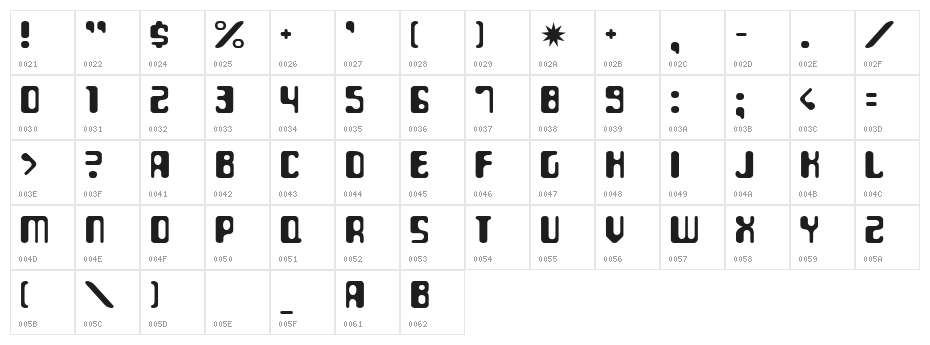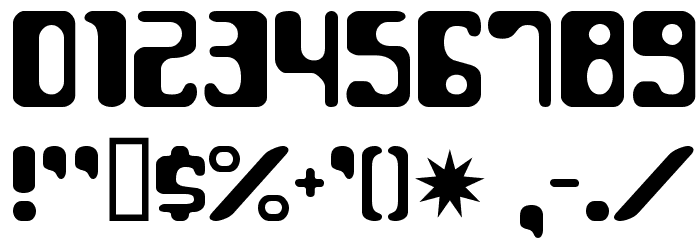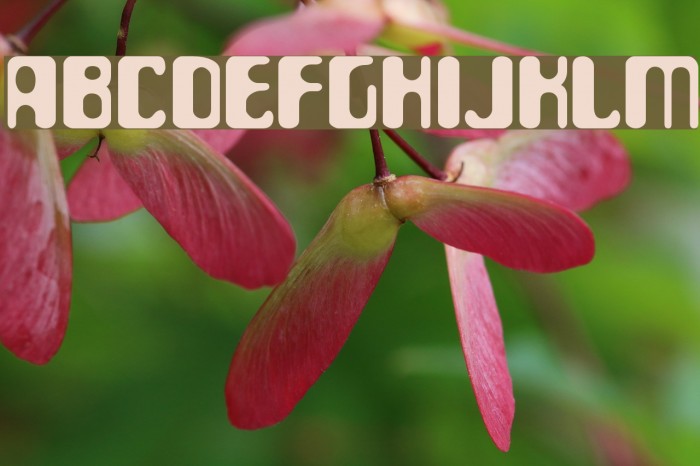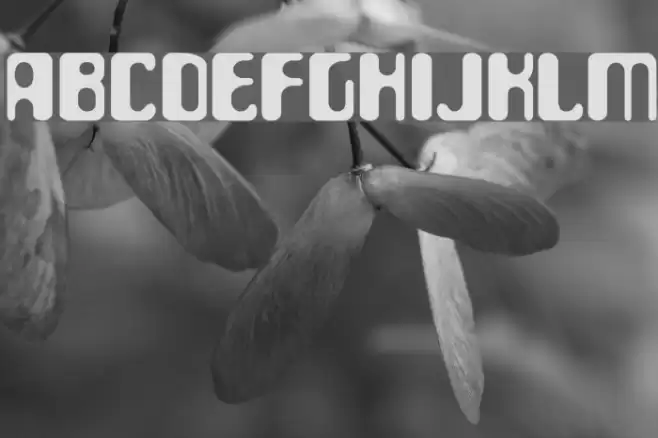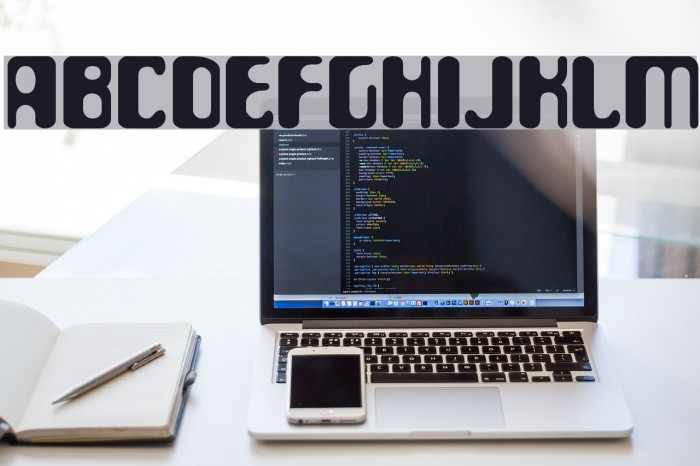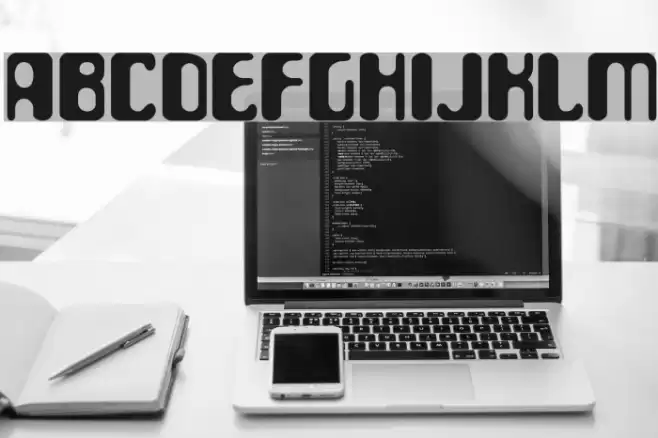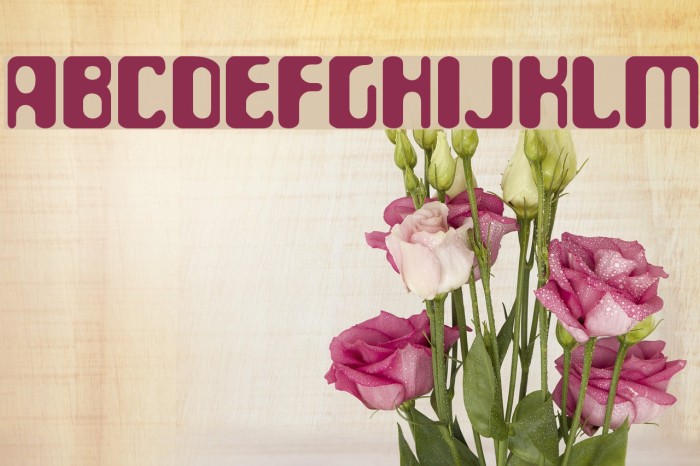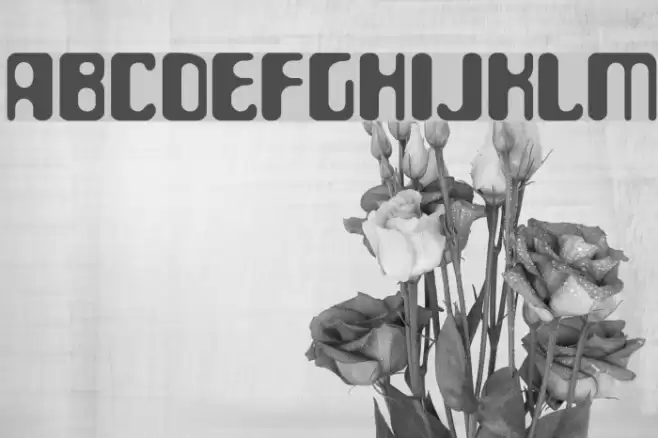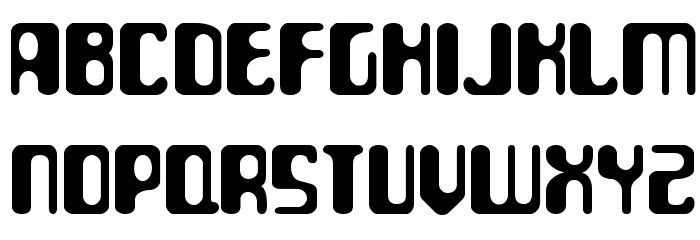
ParaAminobenzoic Font
ParaAminobenzoic Description
This font features a bold and rounded style with a modern and playful aesthetic. The characters are uniformly thick, creating a strong visual impact. The rounded edges soften the overall look, making it approachable and friendly. The uppercase and lowercase letters maintain a consistent height, contributing to a cohesive appearance. The numerals and special characters are designed to match the boldness and curvature of the alphabet, ensuring uniformity across all glyphs. This font's unique style makes it suitable for projects that require a distinctive and eye-catching typeface.
| Use Case | Logos, Headlines, Posters |
| Proposed Projects | Ideal for branding, packaging, children's books, and playful advertising campaigns. |